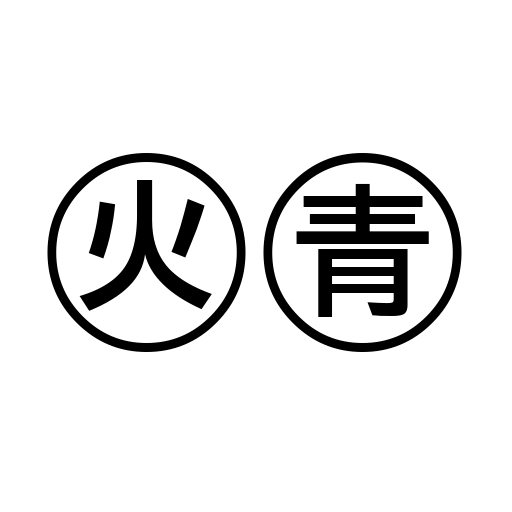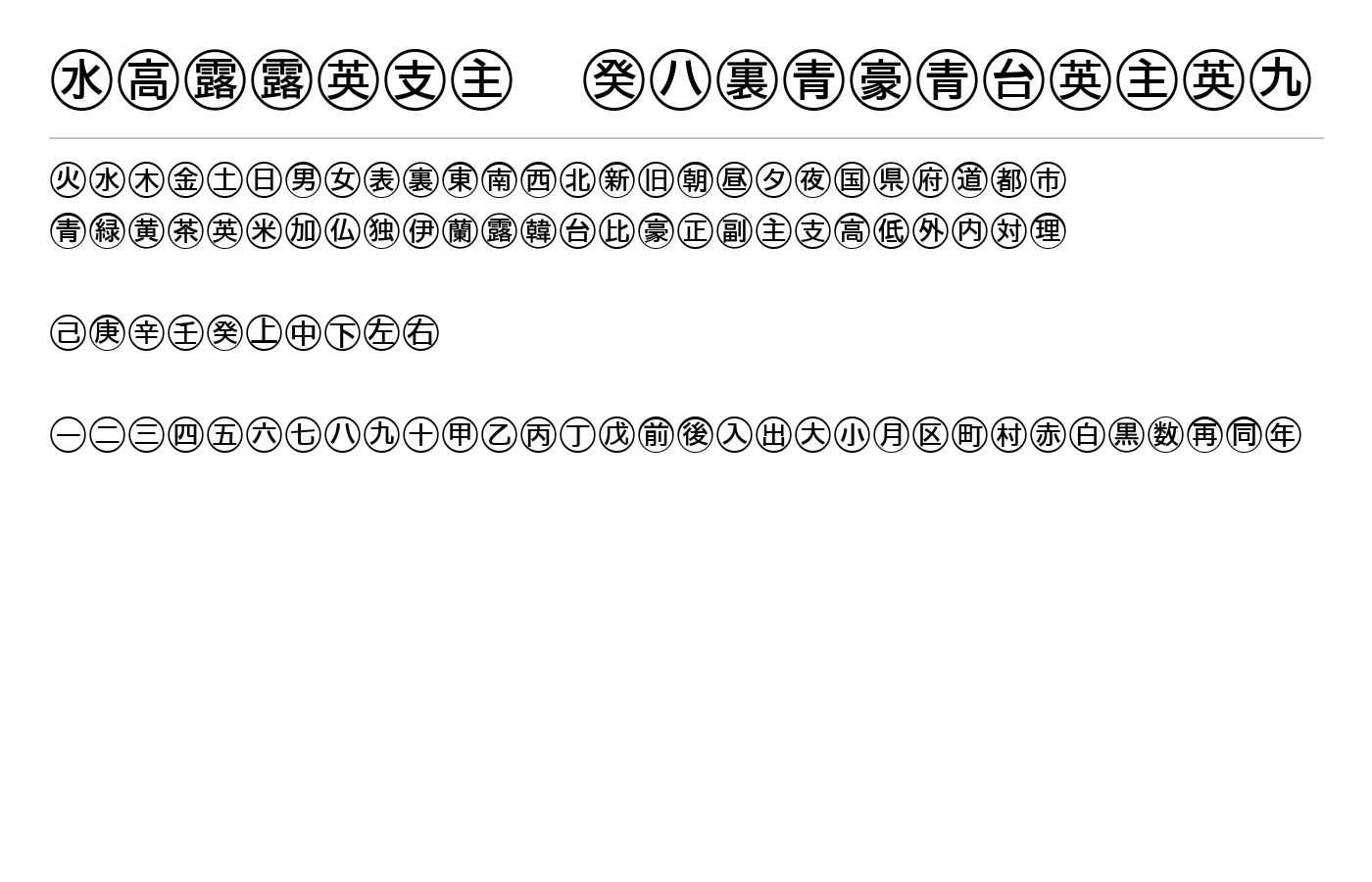
Bullets 4(Japanese) is a clean and modern sans serif font characterized by its unique circular enclosing of each character, which gives it a distinctive and playful appearance. The consistent stroke weight and geometric shapes create a balanced and legible design, making it ideal for signage, headlines, or any project requiring a clear, stylish Japanese font with a contemporary flair. Its friendly yet structured personality suits brands or media that seek to combine orderliness with a touch of creativity.
Bullets 4(Japanese) Font
About Bullets 4(Japanese) Font